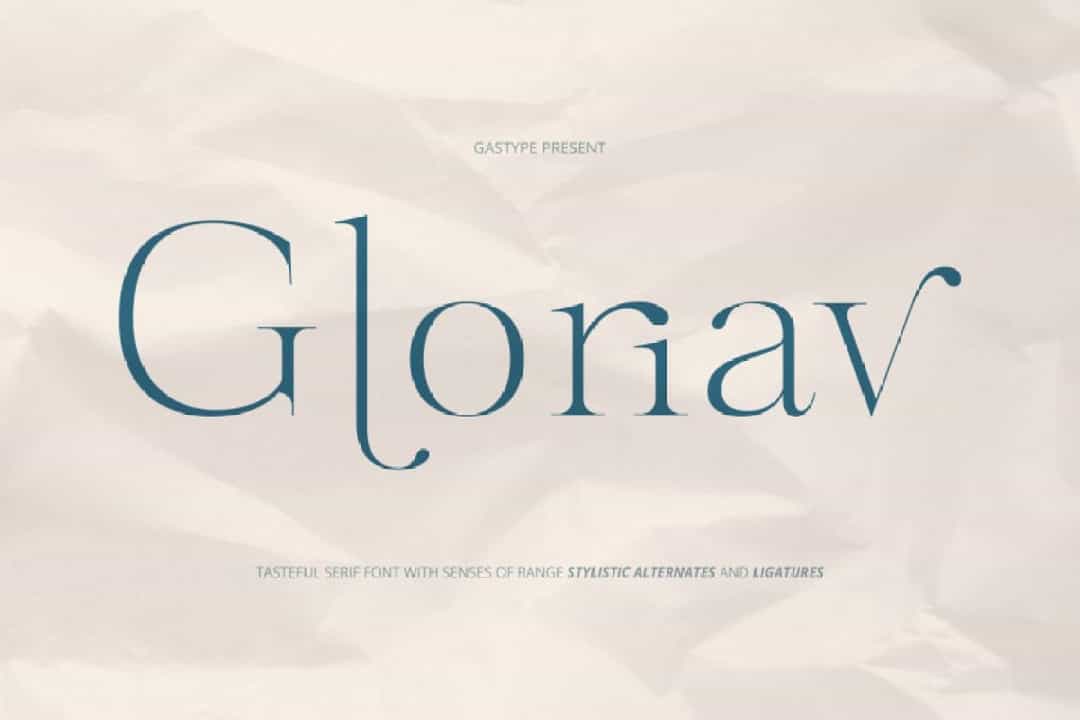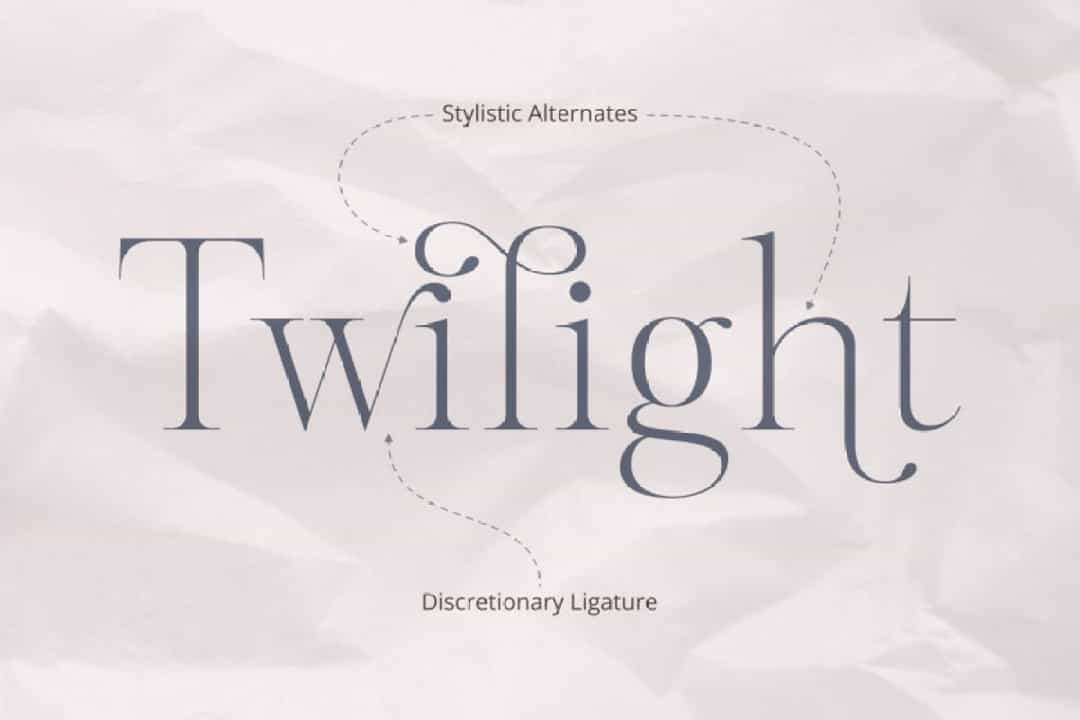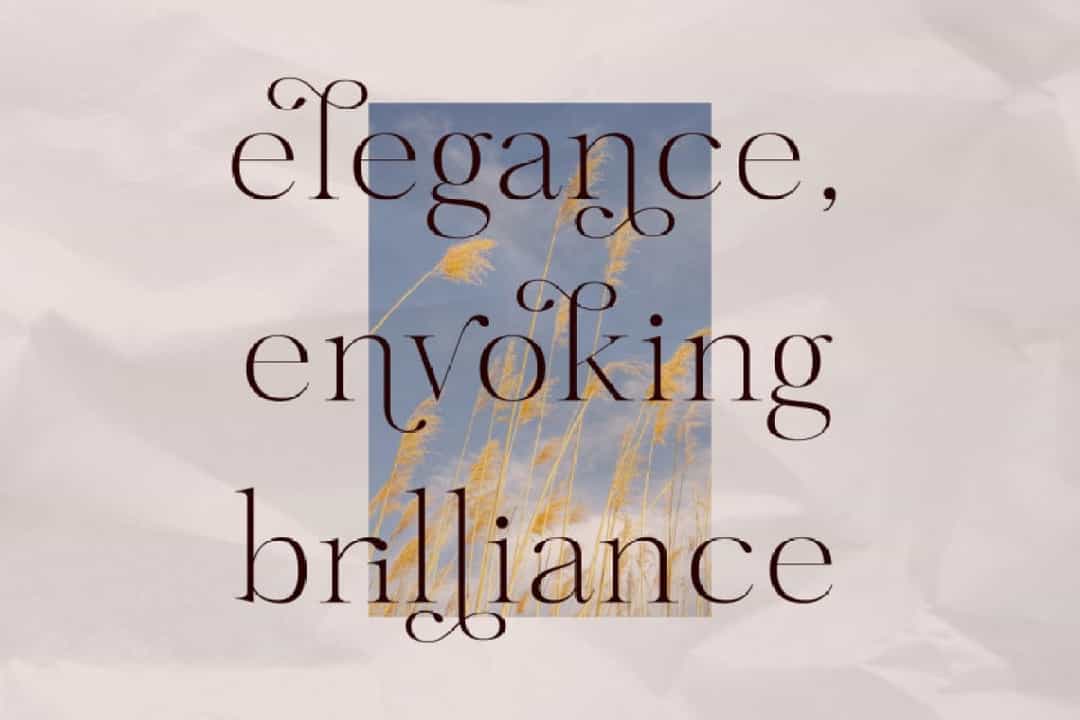
Enhance your designs with Gloriav, an elegant serif font that exudes timeless elegance with its graceful curves and elaborate features. Gloriav captures attention effortlessly while making projects more creative by using its extensive font family selection of discretionary and standard ligatures to add a hint of elegance into writing projects.